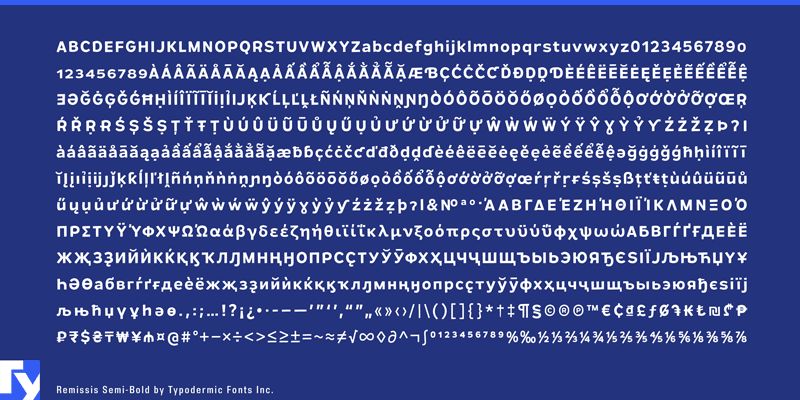
Remissis is a semi-casual sans-serif typeface available in 7 weights and italics. In OpenType savvy applications, you can access lining old-style numerals. Remissis was designed for high-resolution display and print. There are plenty of mathematical symbols, monetary symbols and combining diacritical marks. Remissis supports Greek, Vietnamese, Cyrillic, Pan-Nigerian and most Latin based languages. The desktop license for Remissis Semi-Bold is free. If you'd like to embed this font in an app, ebook, on the web or anything that's not covered by the desktop license agreement, visit the link below. You'll find distributors who offer different types of licenses or you can contact me for help. http://typodermicfonts.com/remissis/ This free font is part of a larger font family. Check out the rest of the family through the link above. |